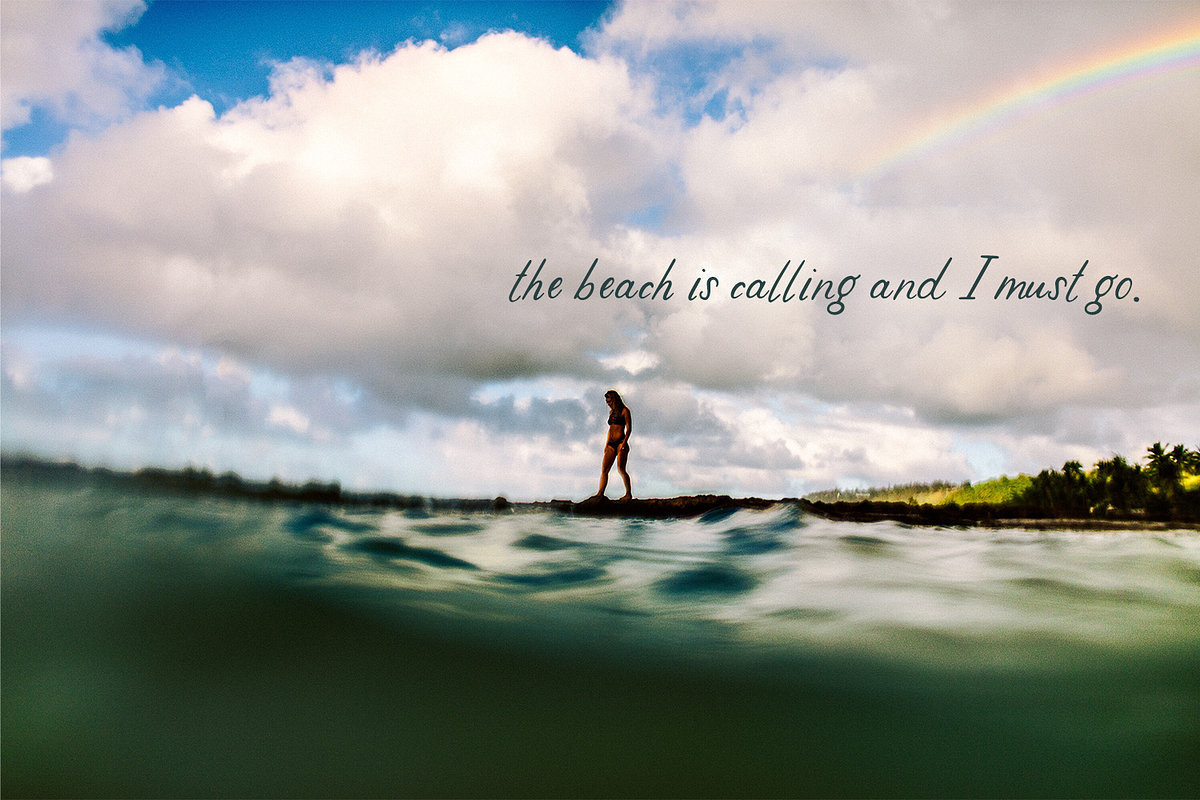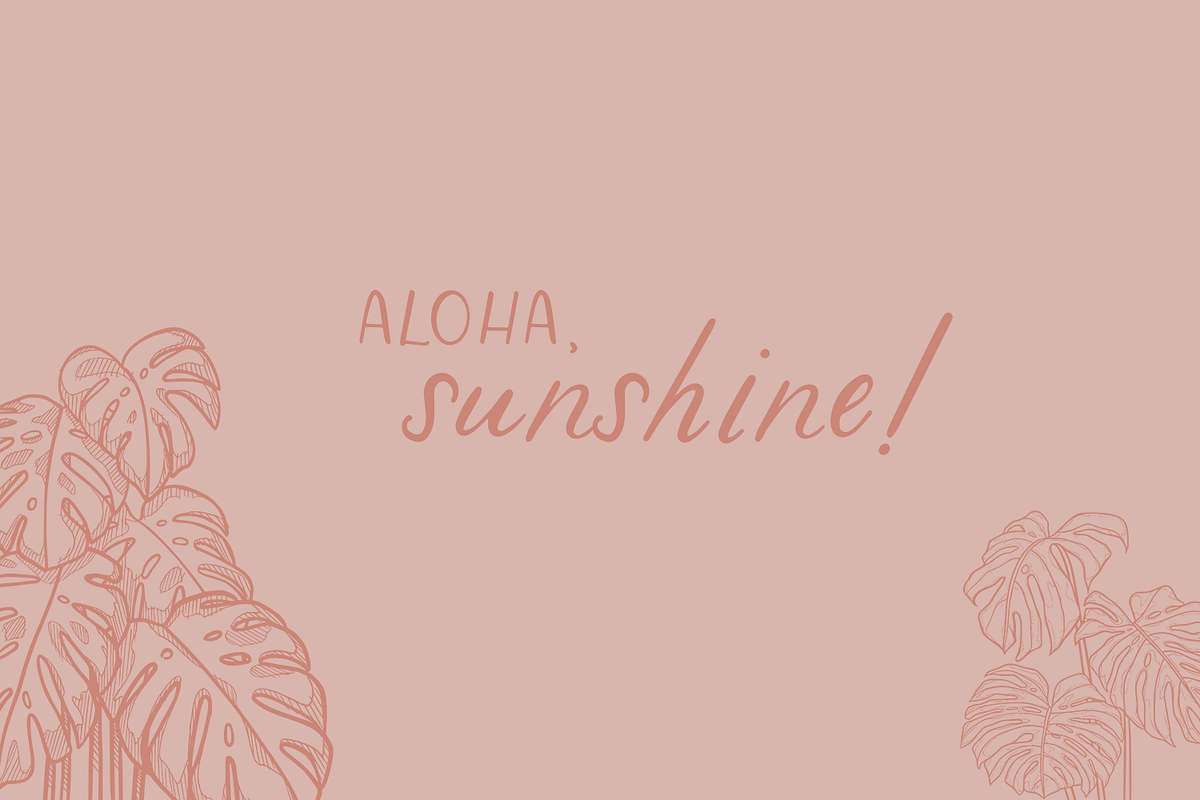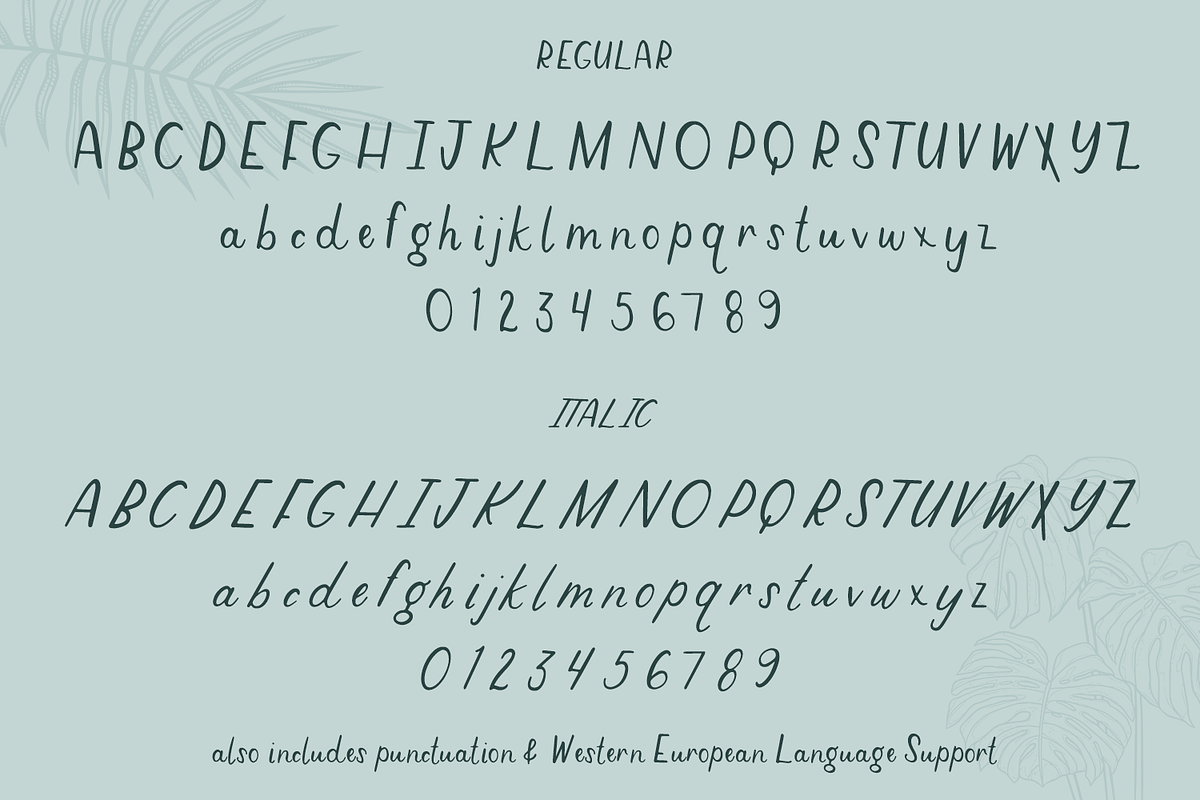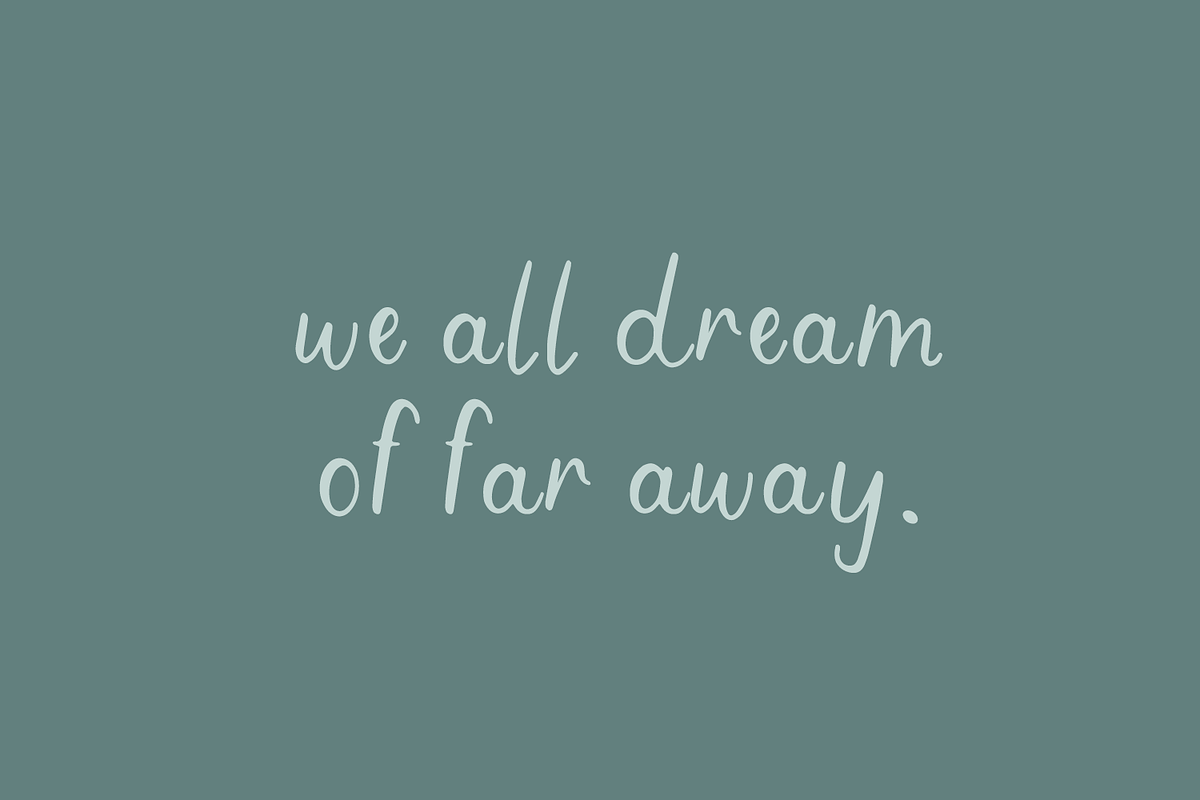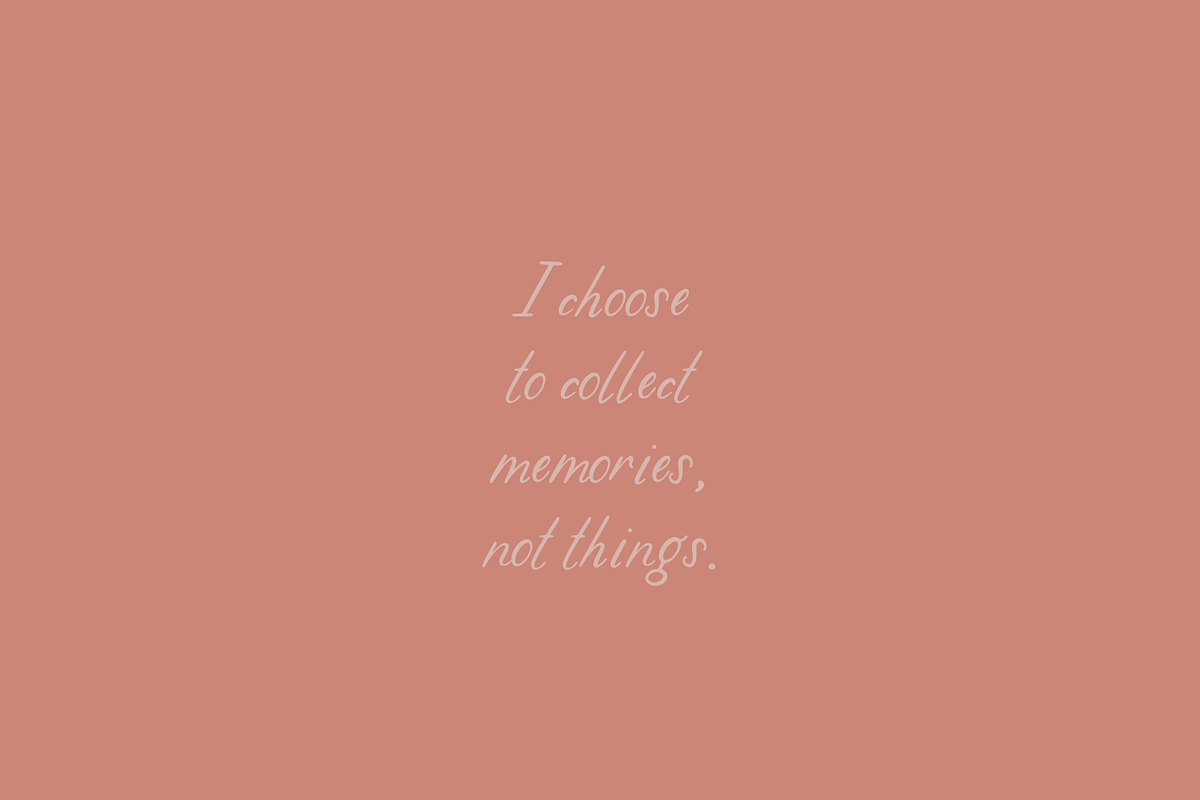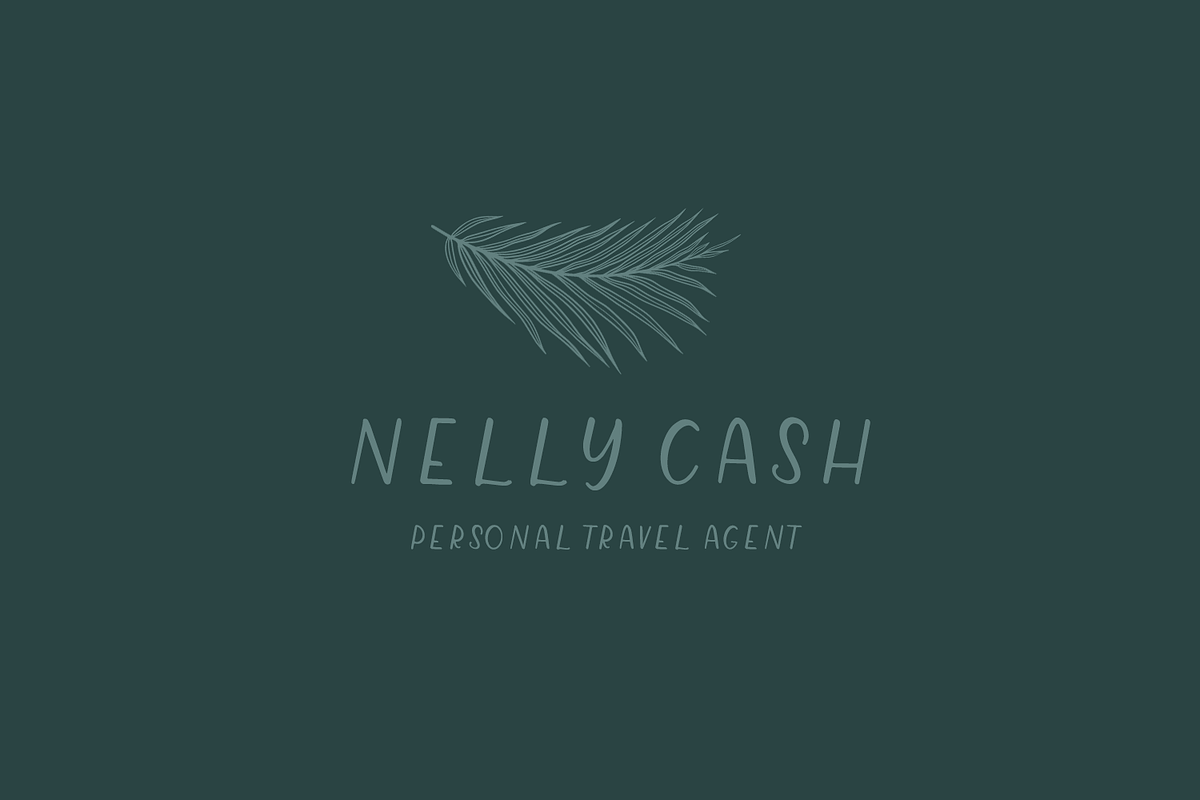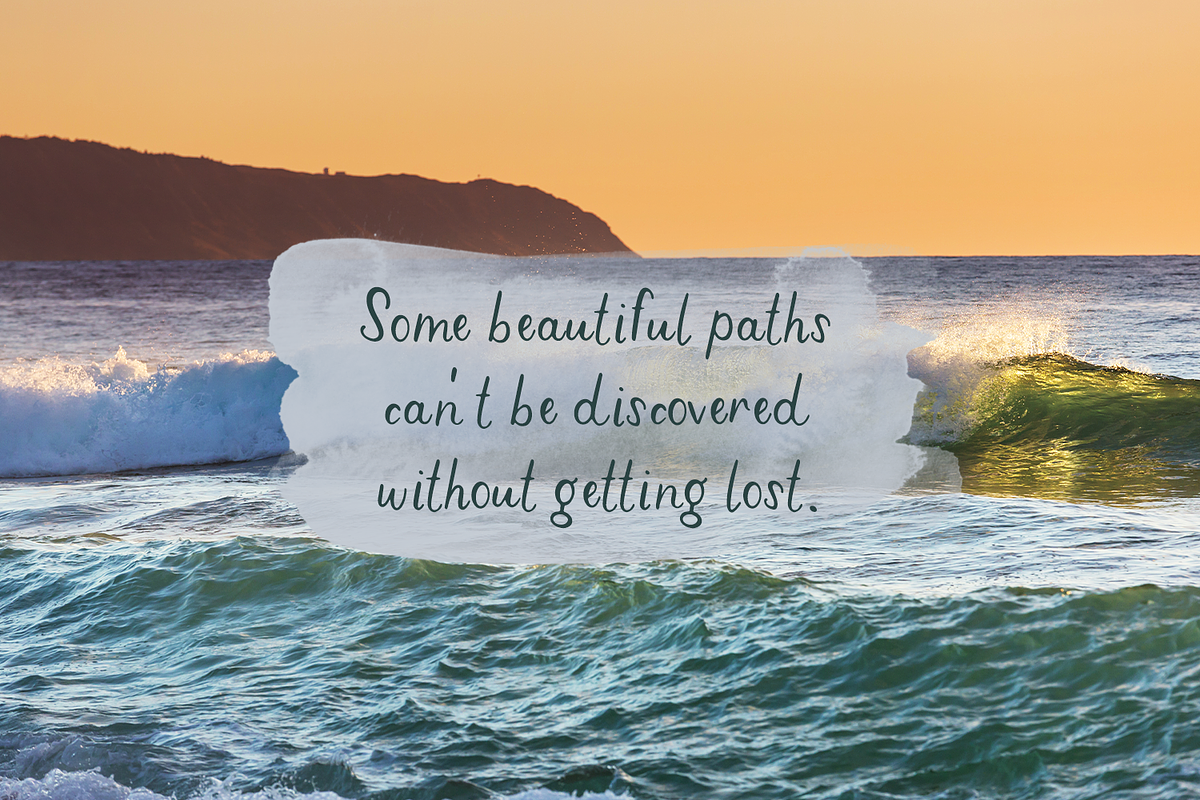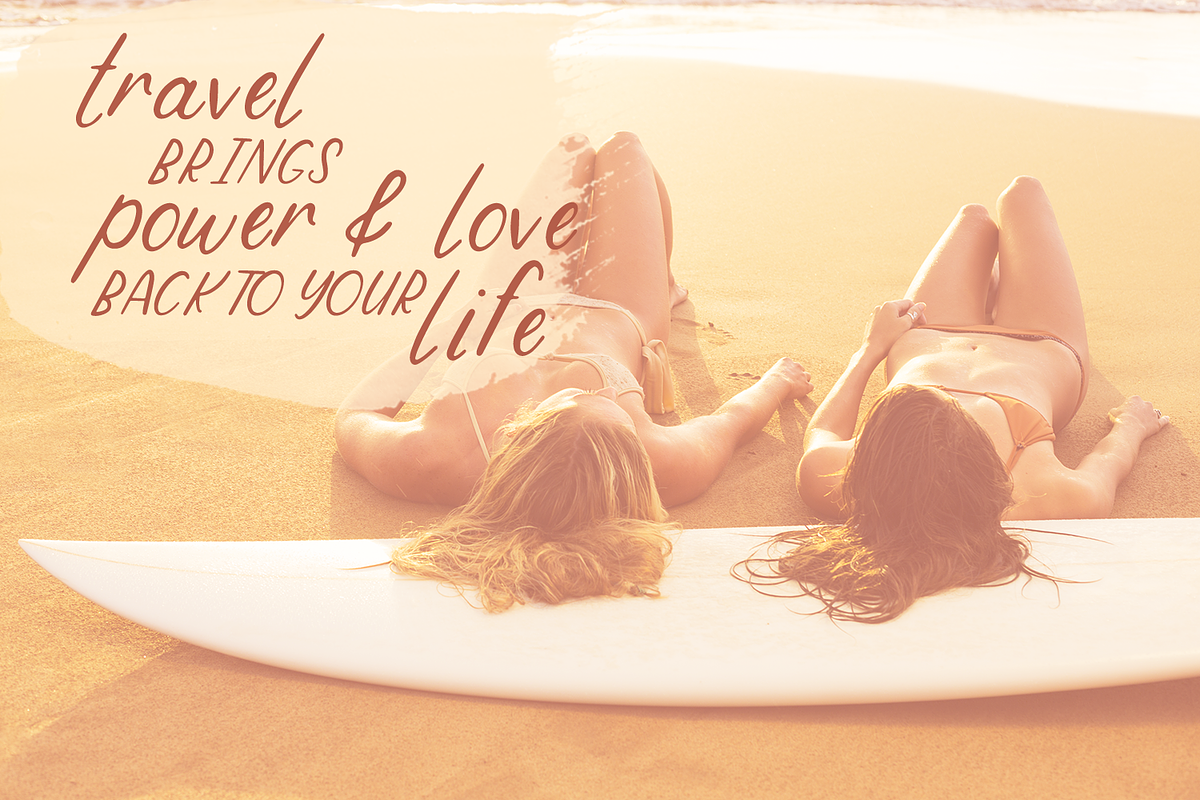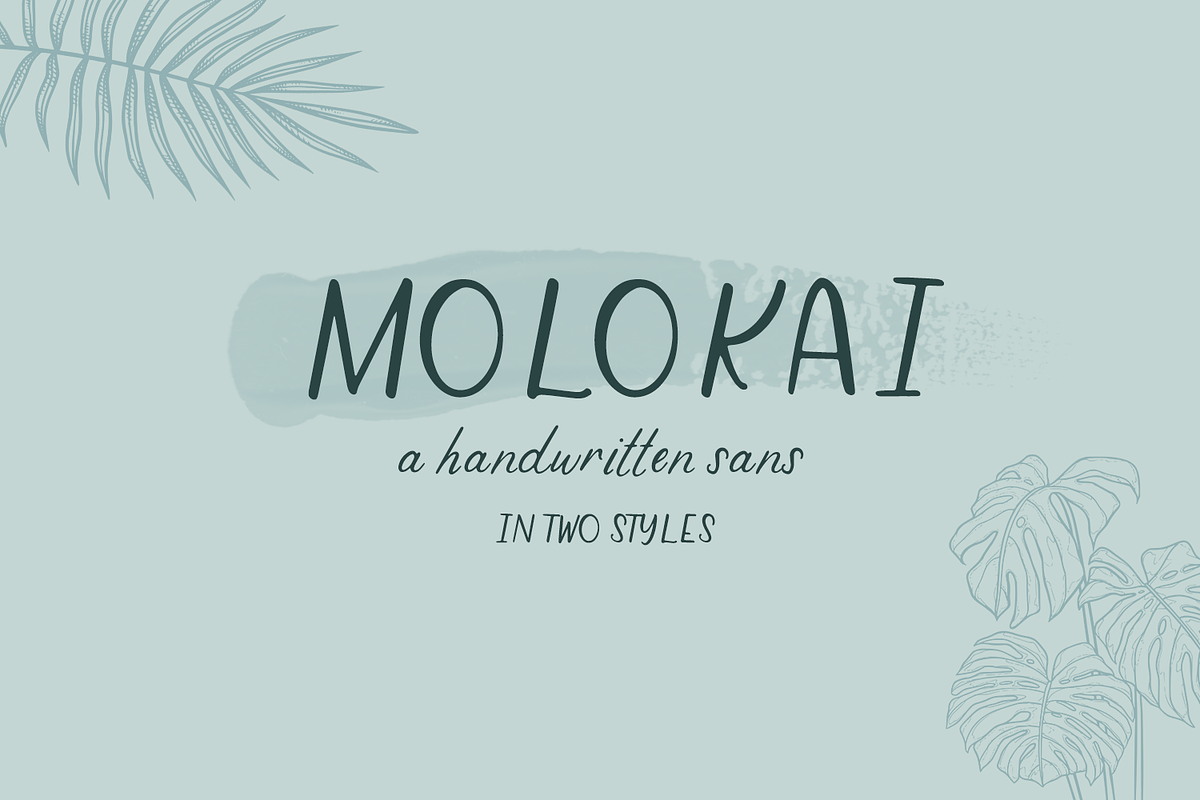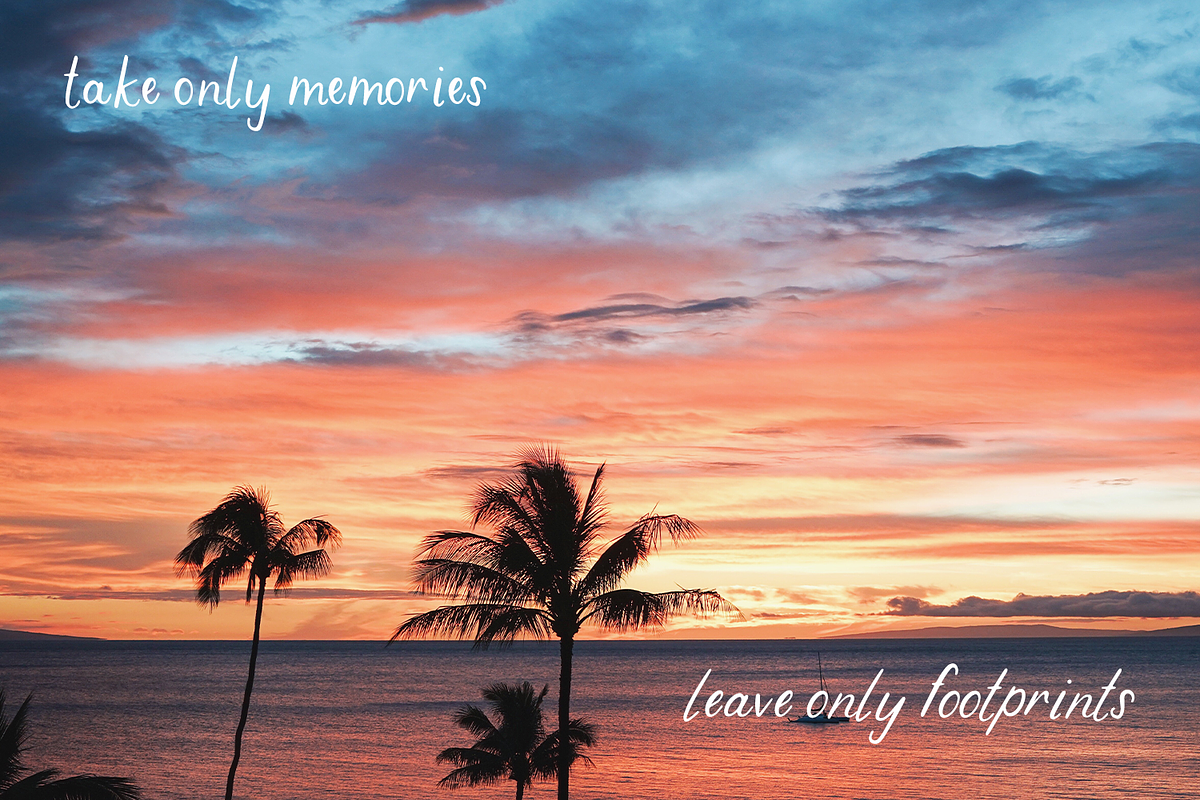
Molokai Sans Duo
Meet Molokai, a relaxed handwritten font duo. Molokai includes regular and italic versions, which can be used individually or paired together for a lovely cohesive look.
Molokai Sans is best for:
- quote graphics for social media
- website design + website accents requiring a legible handwritten touch
- clean print design, like magazines + flyers
- labels & product packaging
- logos + branding
Molokai includes:
- upper and lowercase characters
- numbers + punctuation
- Western European Language Support